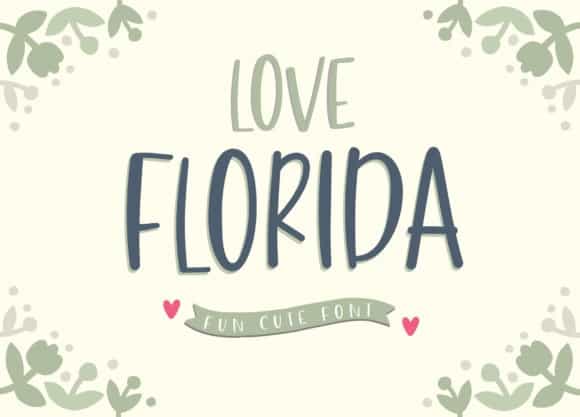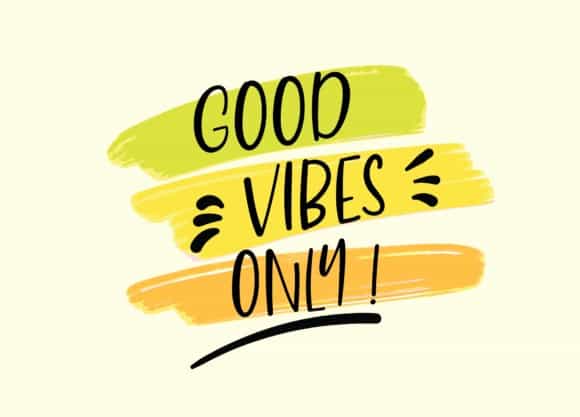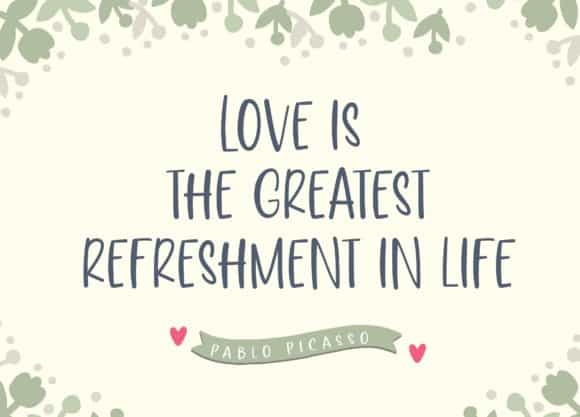
Discover Love Florida Script Font, part of the Calligraphy collection—a versatile and unique font perfect for adding a personal touch to your projects. Download it for free and enjoy crafting designs with style, from invitations to social media posts. This font is available exclusively for personal use, giving you the freedom to create without limits. Unlock your creativity with Love Florida Script Font today!
Love Florida is a fun cute font and it gives your projects a touch of class yet modern at the same time. So remember: Whenever you are in doubt, just go for the Love Florida Font and be sure to produce something fabulous. Scripts are the favorite choice of many to give an elegant and chic look to any artwork.